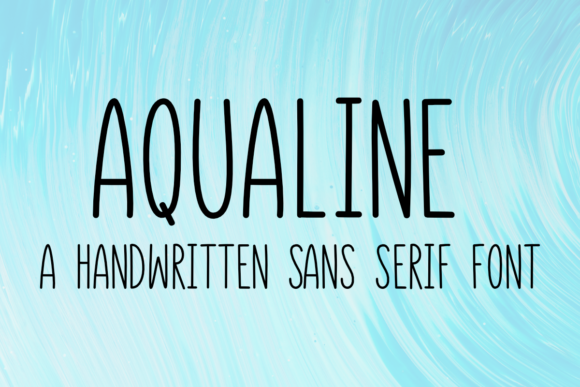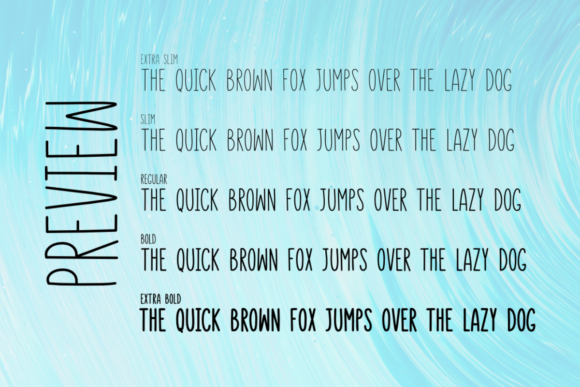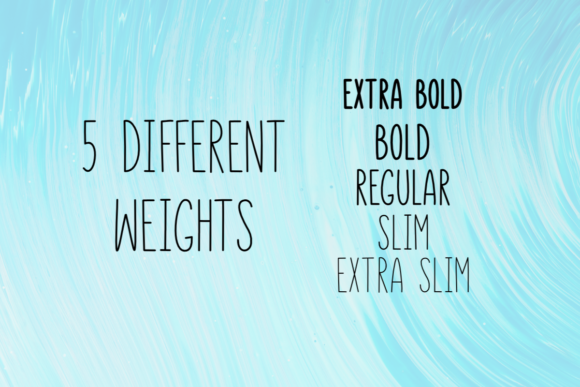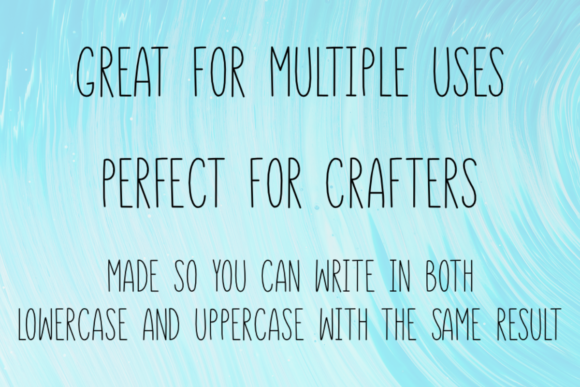
Aqualine Font: Tall Sans Serif for Modern Logo Design & Branding
About the Aqualine Font
Meet Aqualine Font, a stunning font that brings a touch of elegance and professionalism to any design. Aqualine is a tall and thin sans serif font. Simple but with a strong visual effect, this font will instantly make your creation more appealing than any other
Aqualine’s tall, slender forms make it ideal for headlines, short impactful statements, and branding applications where a modern, elegant feel is desired. It excels in logos, posters, and short-form marketing materials. However, its thin strokes make it less suitable for body text or UI elements where readability at smaller sizes is crucial. Extended use could lead to fatigue.
Its clean lines and confident stance project a sophisticated, minimalist personality. To complement this, consider pairing Aqualine with a warm, rounded serif like Playfair Display for a touch of classic elegance, or a geometric sans-serif such as Futura for a cohesive, modern look. A script font like Great Vibes would add a touch of personality, particularly for invitations or packaging.
Avoid pairing it with overly decorative or highly contrasting fonts; its strength lies in its simplicity and should be respected in the design’s overall balance.